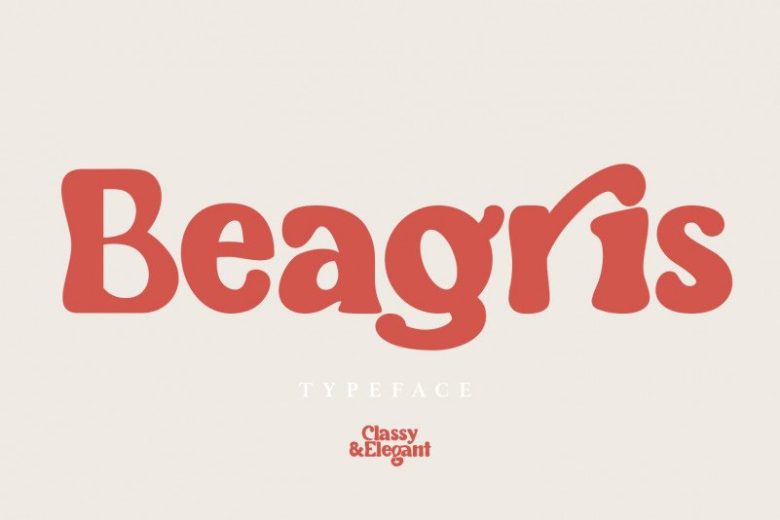
Beagris Font
Beagris Display Font is a luxe, calligraphic upper and lowercase display serif that is beautiful, elegant, clean, and luxurious and there are also some additional glyphs and ligatures.
Beagris came with opentype features such stylistic alternates, stylistic sets & ligatures good for logotype, poster, badge, book cover, tshirt design, packaging and any more.